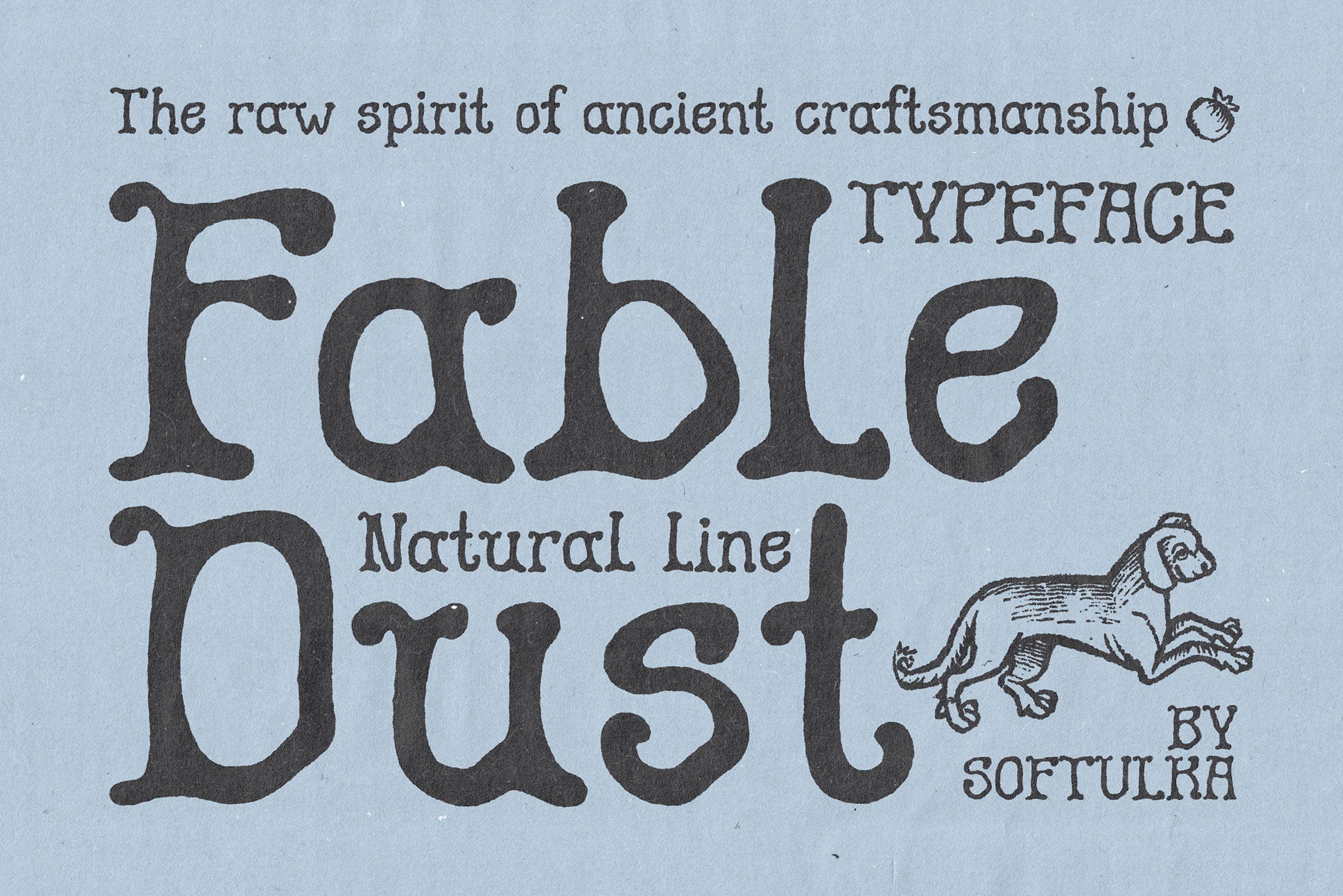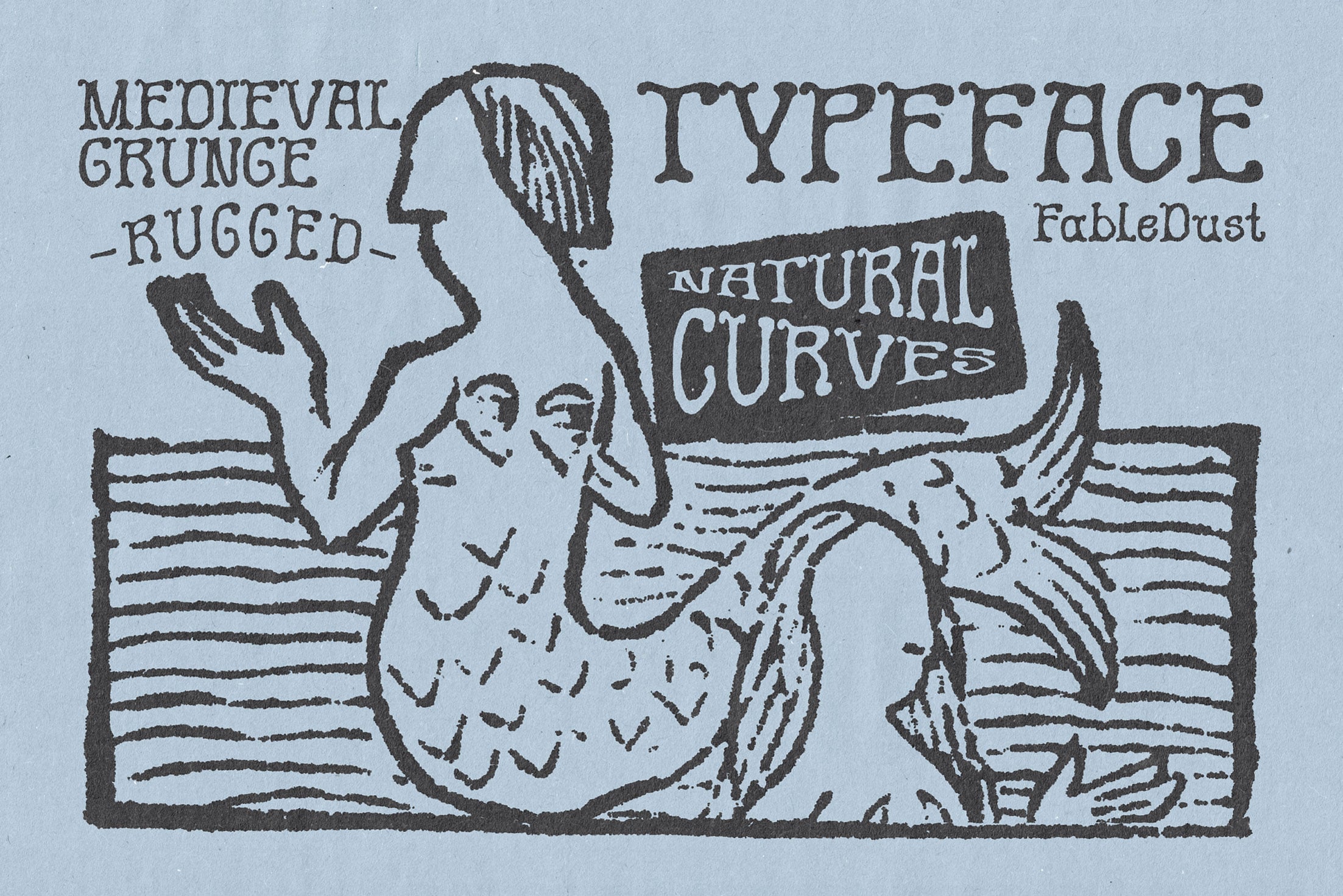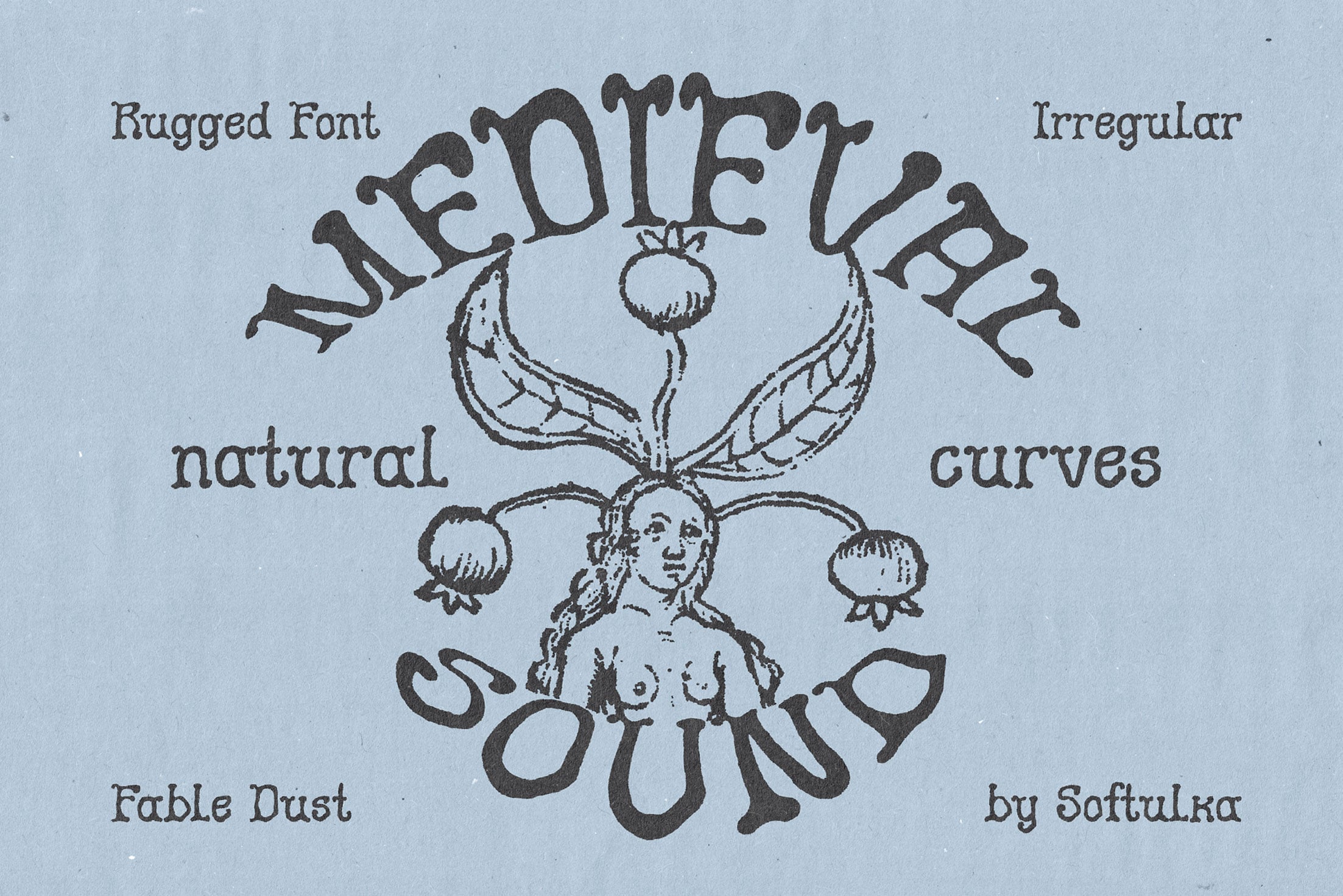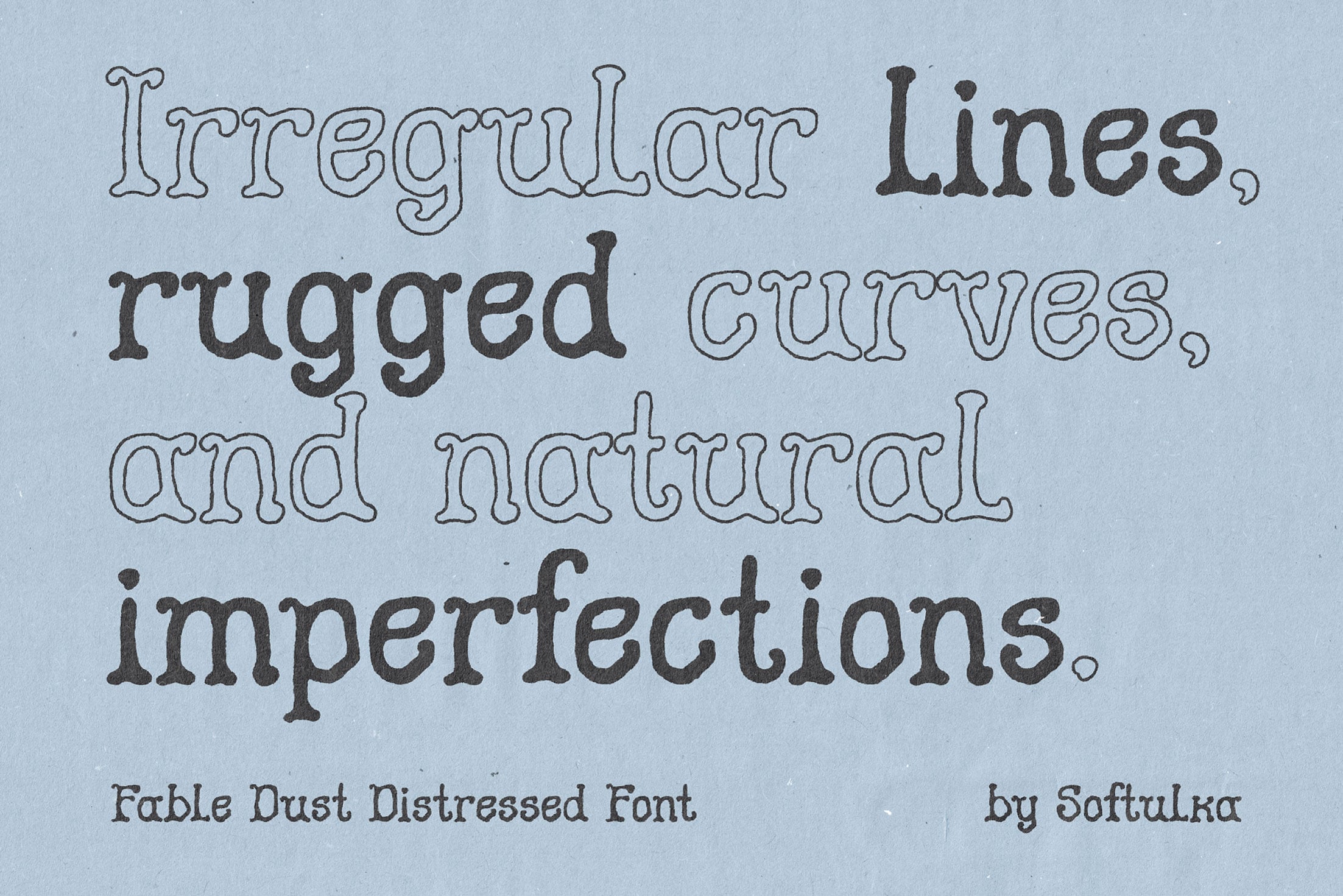
Medieval Grunge Typeface. Fable Dust is a whimsical, medieval-inspired display font that captures the essence of ancient manuscripts and forgotten fairytales. Featuring eccentric..serifs and a purposefully irregular, "hand-inked" finish, this typeface brings an authentic, rustic charm to your designs.
Perfect for book covers, occult branding, vintage posters, and any project needing a touch of mystical, historical imperfection.